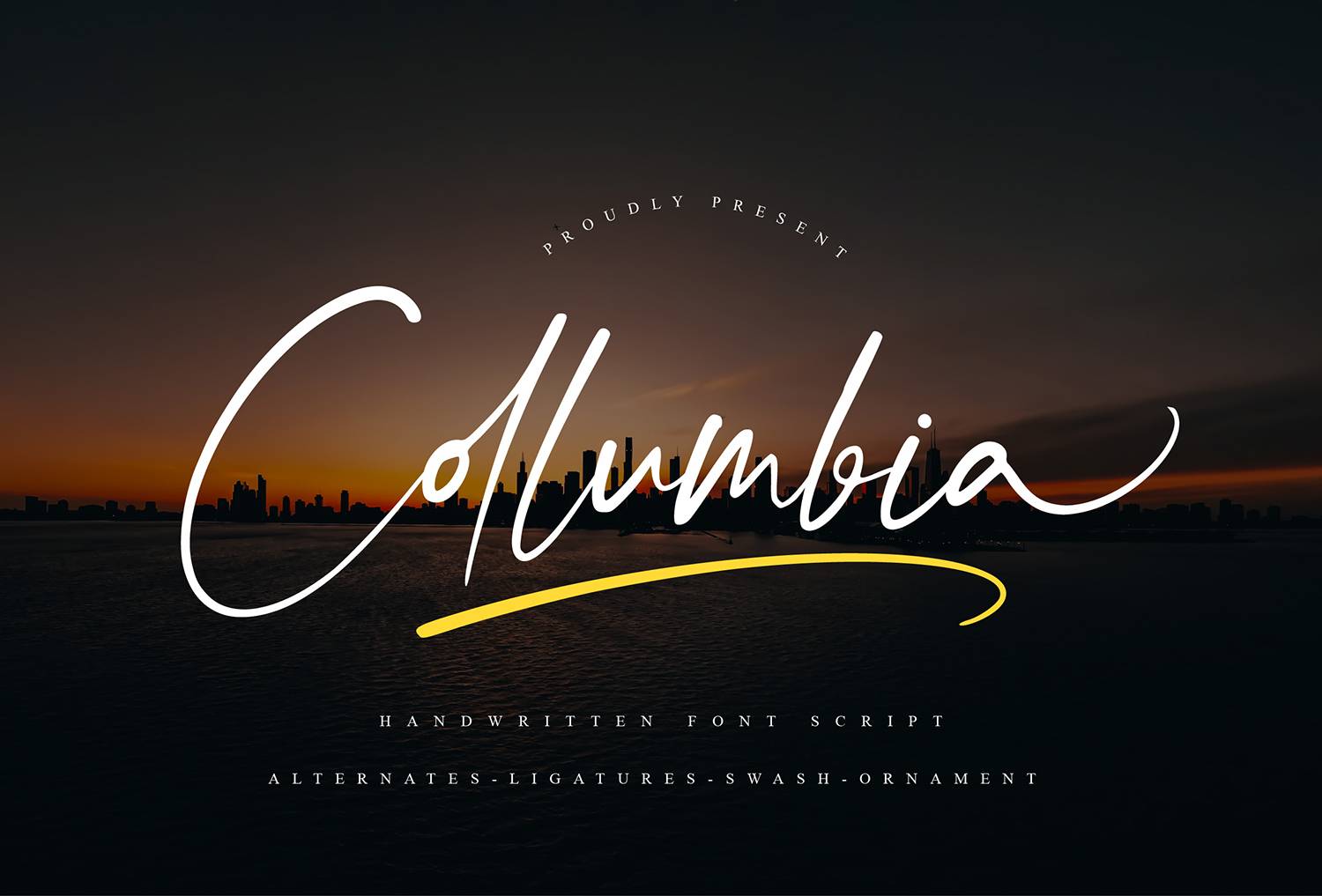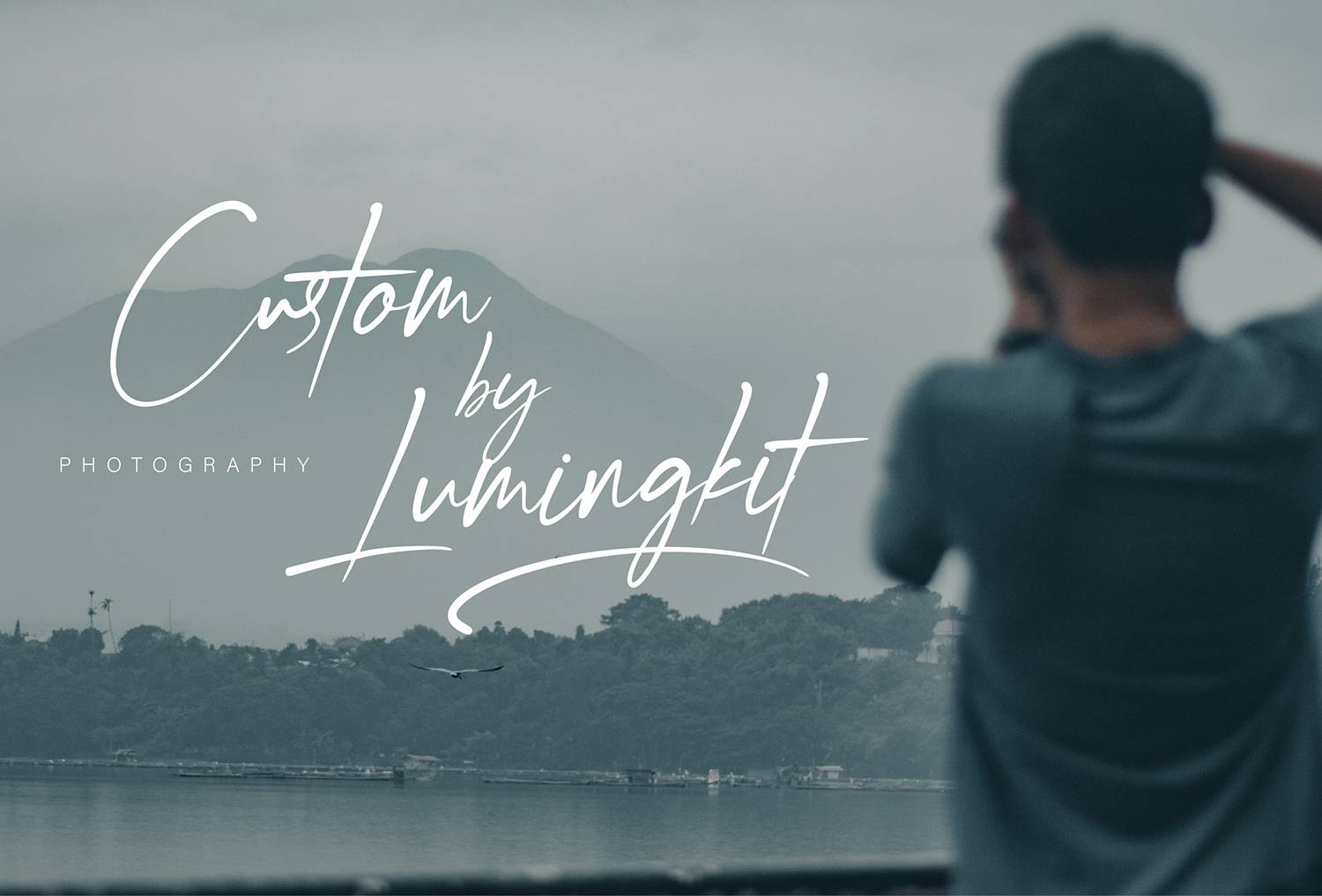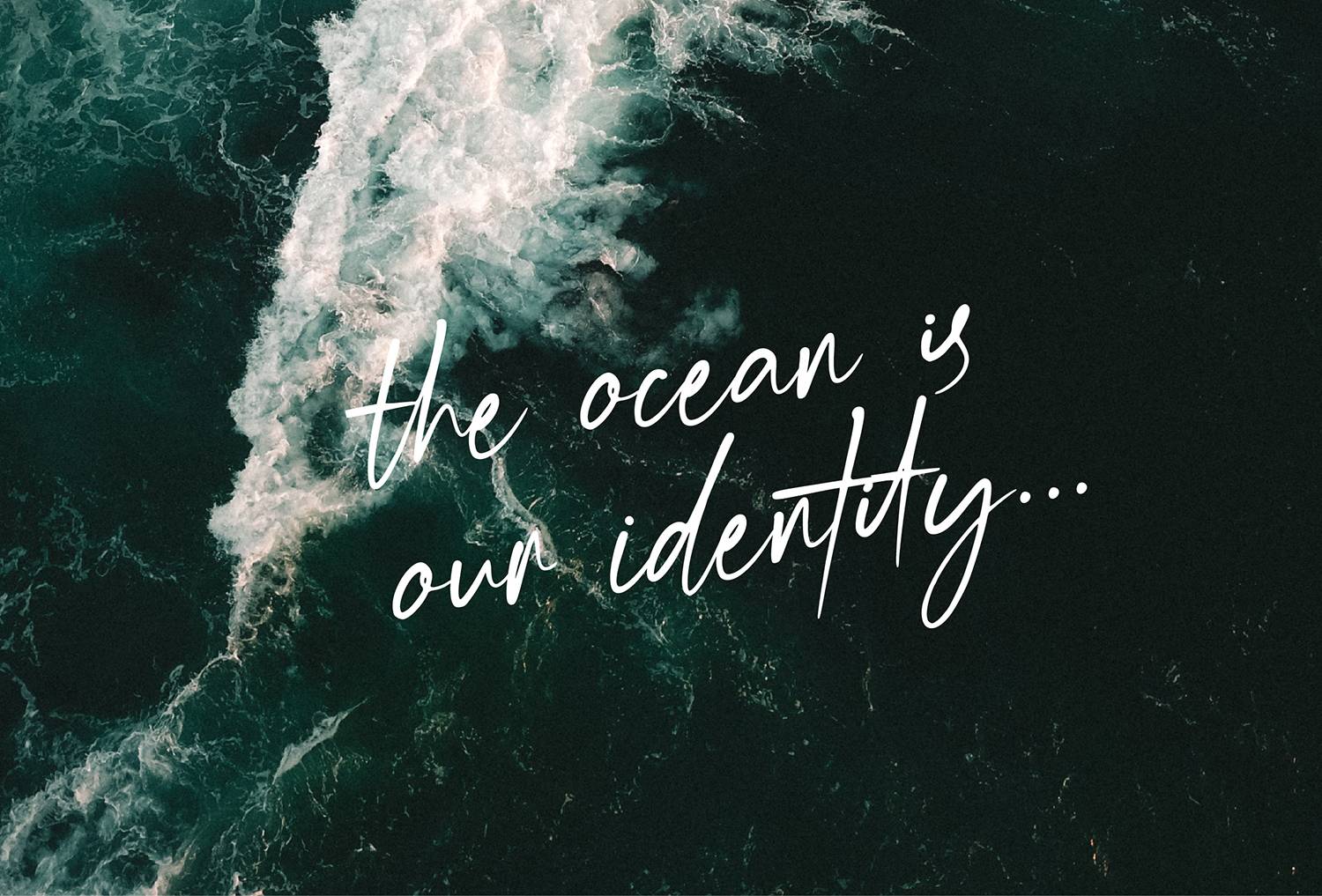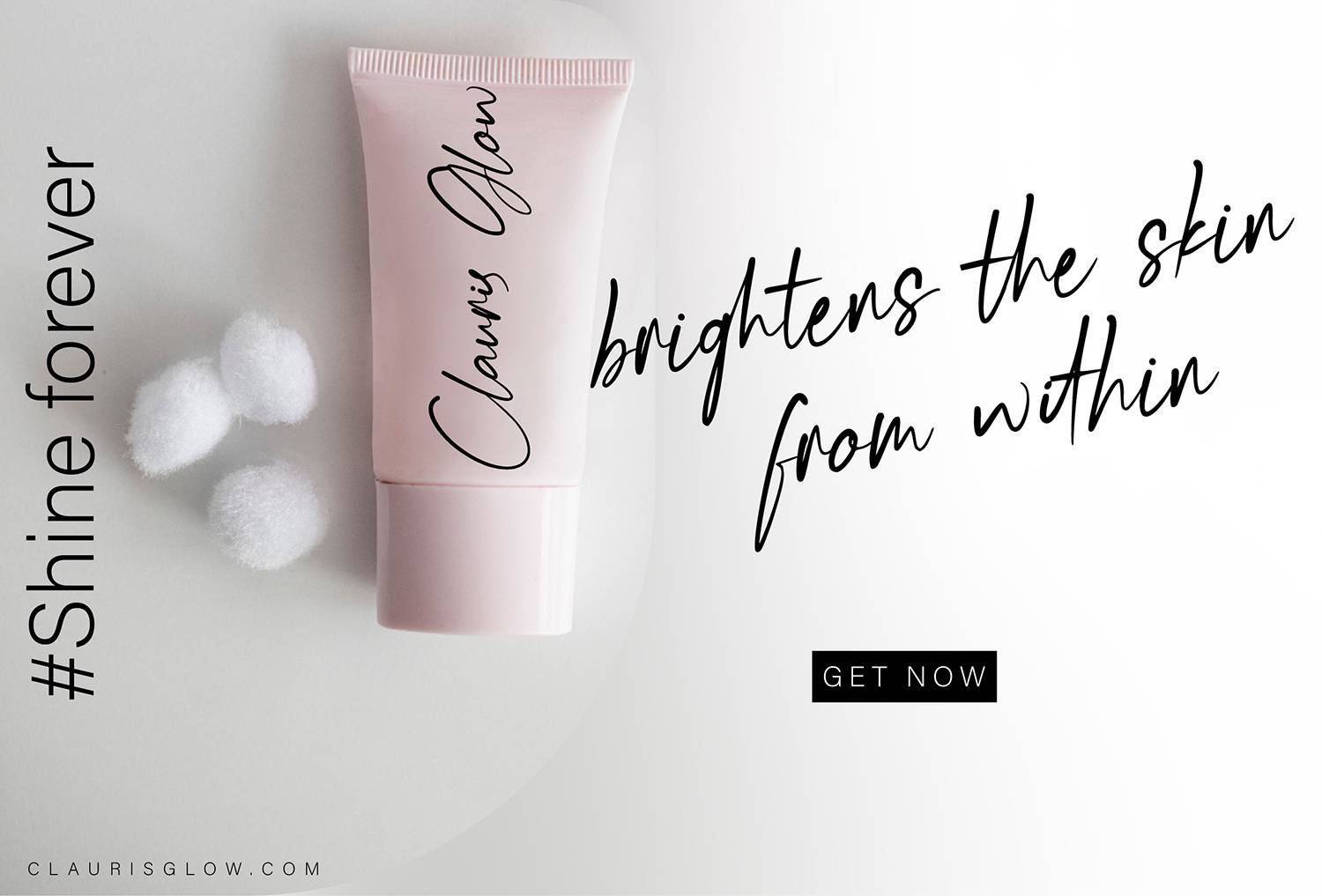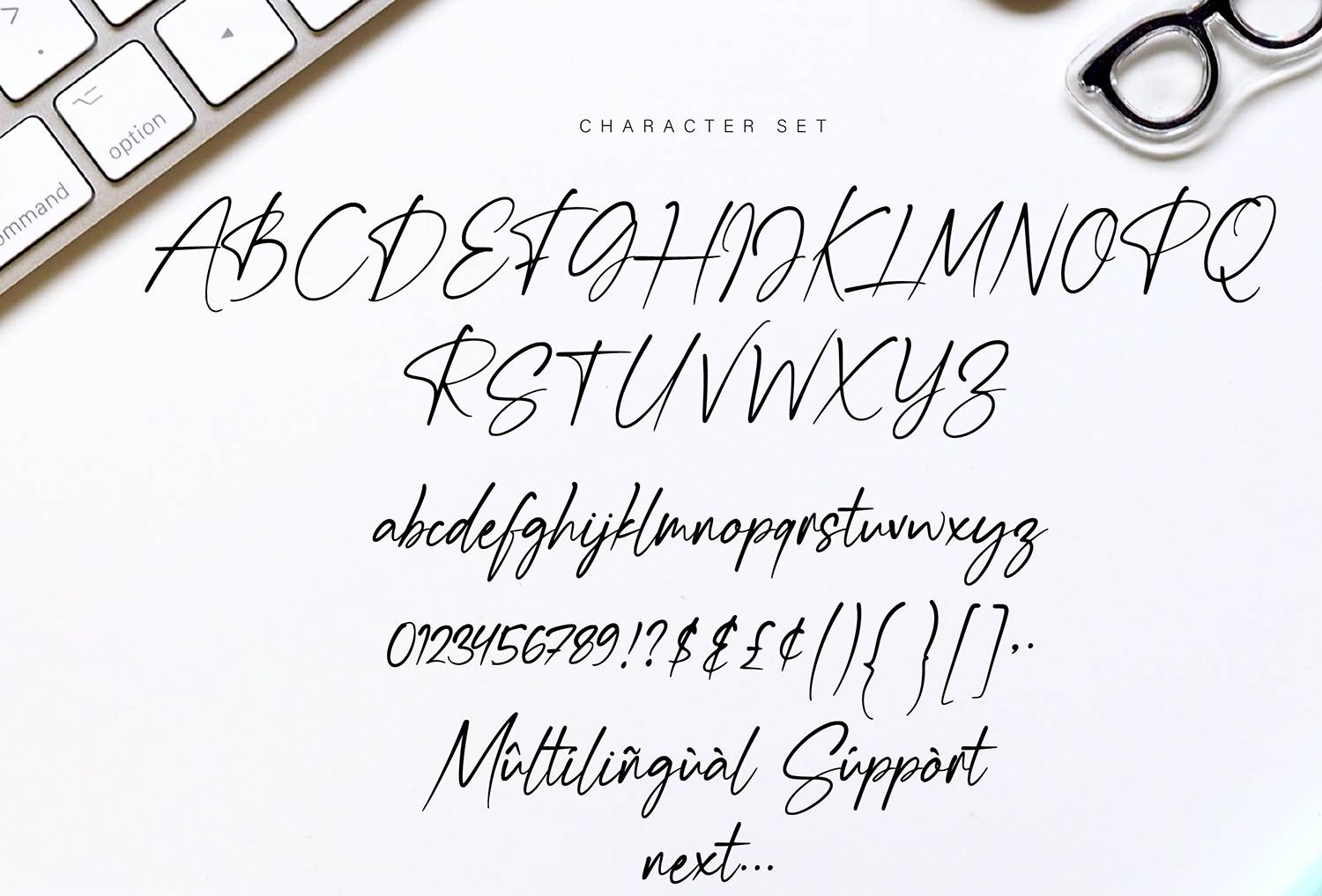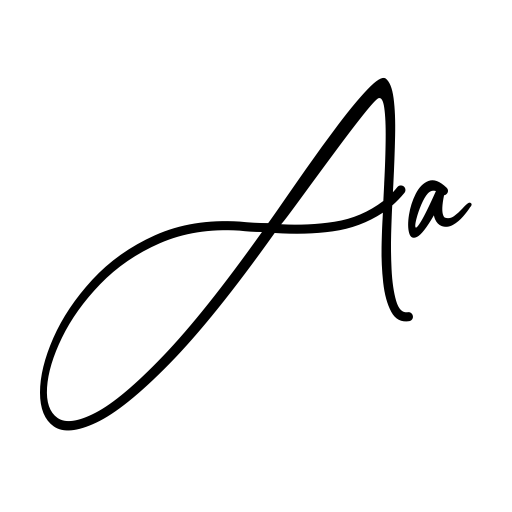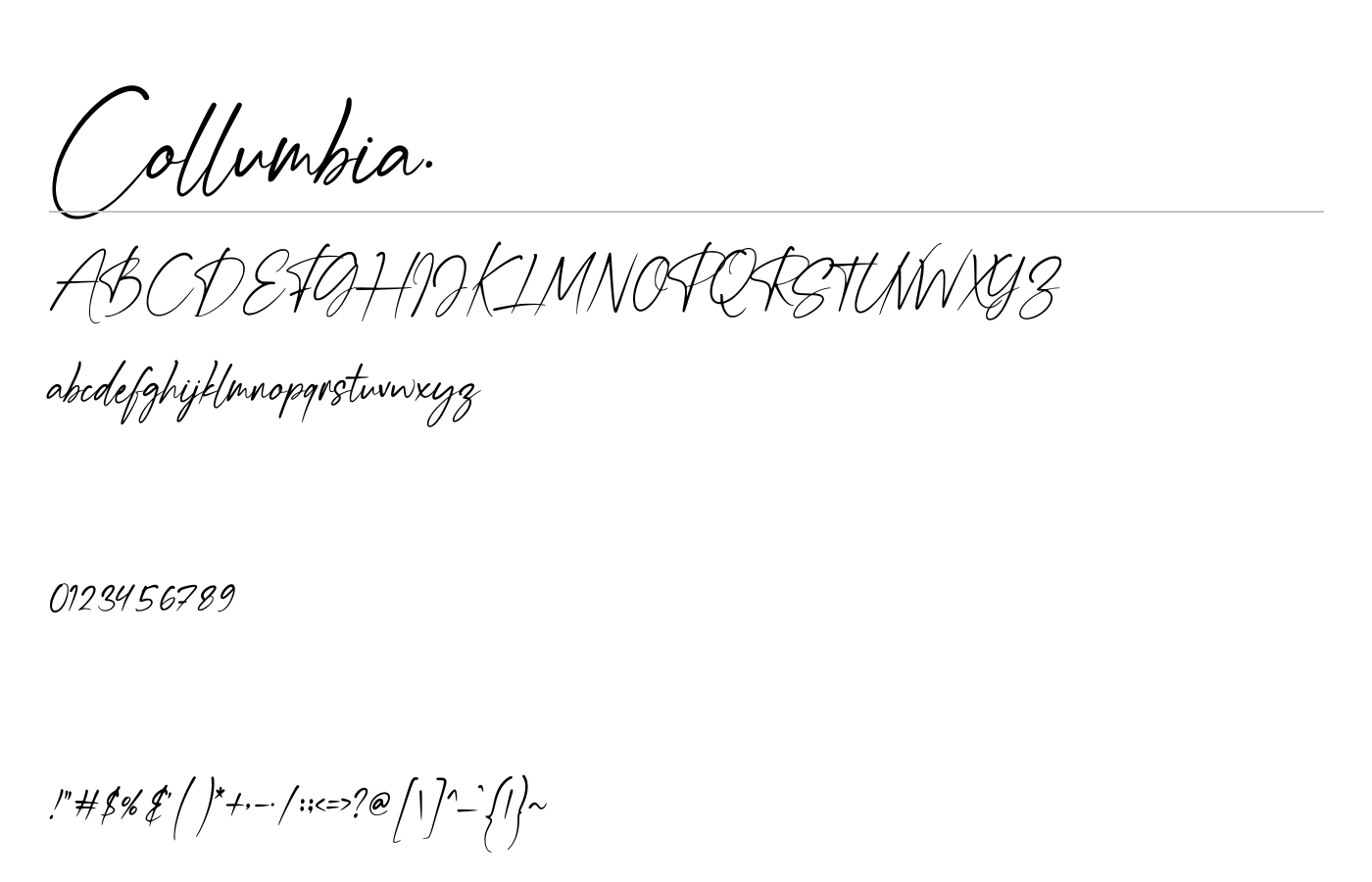
Collumbia is a delicate, handwritten script font featuring thin, flowing strokes with a natural, elegant touch. Its narrow width and graceful curves give it a refined and personal feel, making it ideal for branding, invitations, and creative projects seeking a soft, sophisticated style. This font works best where a subtle, artistic flair is desired to convey warmth and elegance.
Collumbia Font
About Collumbia Font
| Font family | Collumbia Font |
| Designer | Akhmad riyan danuarta |